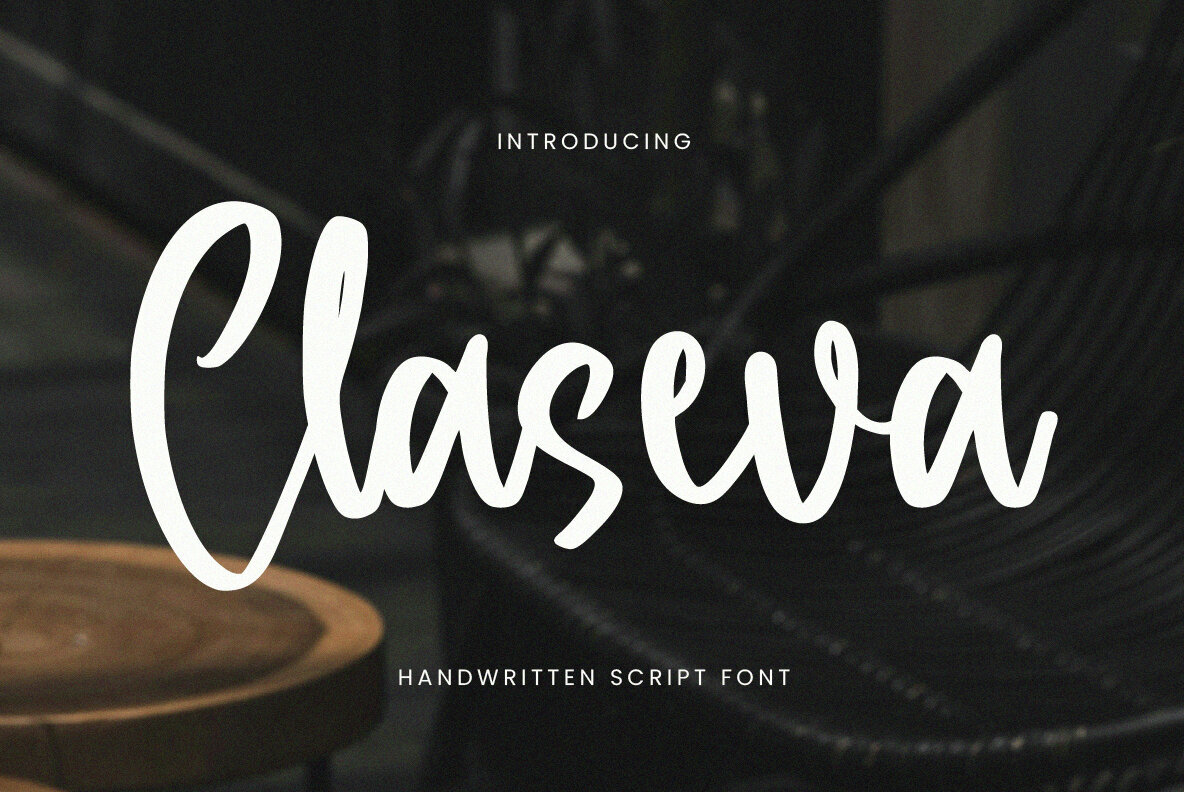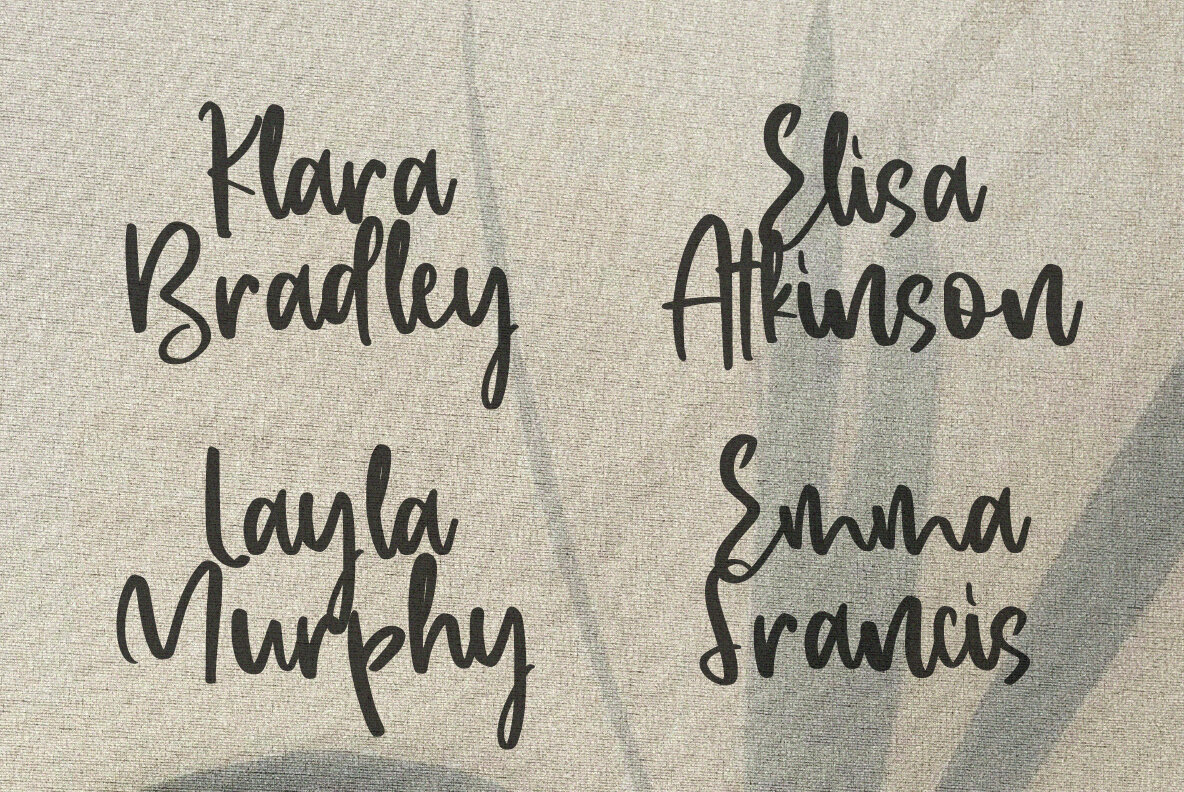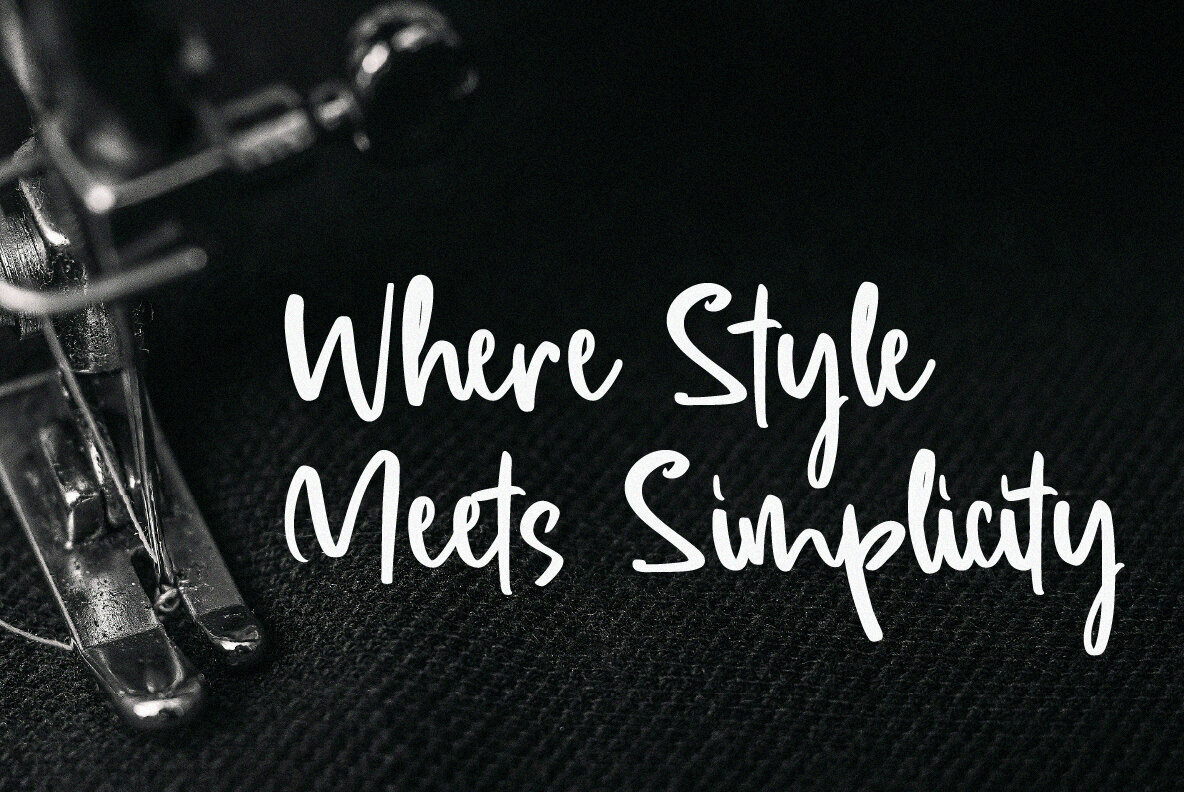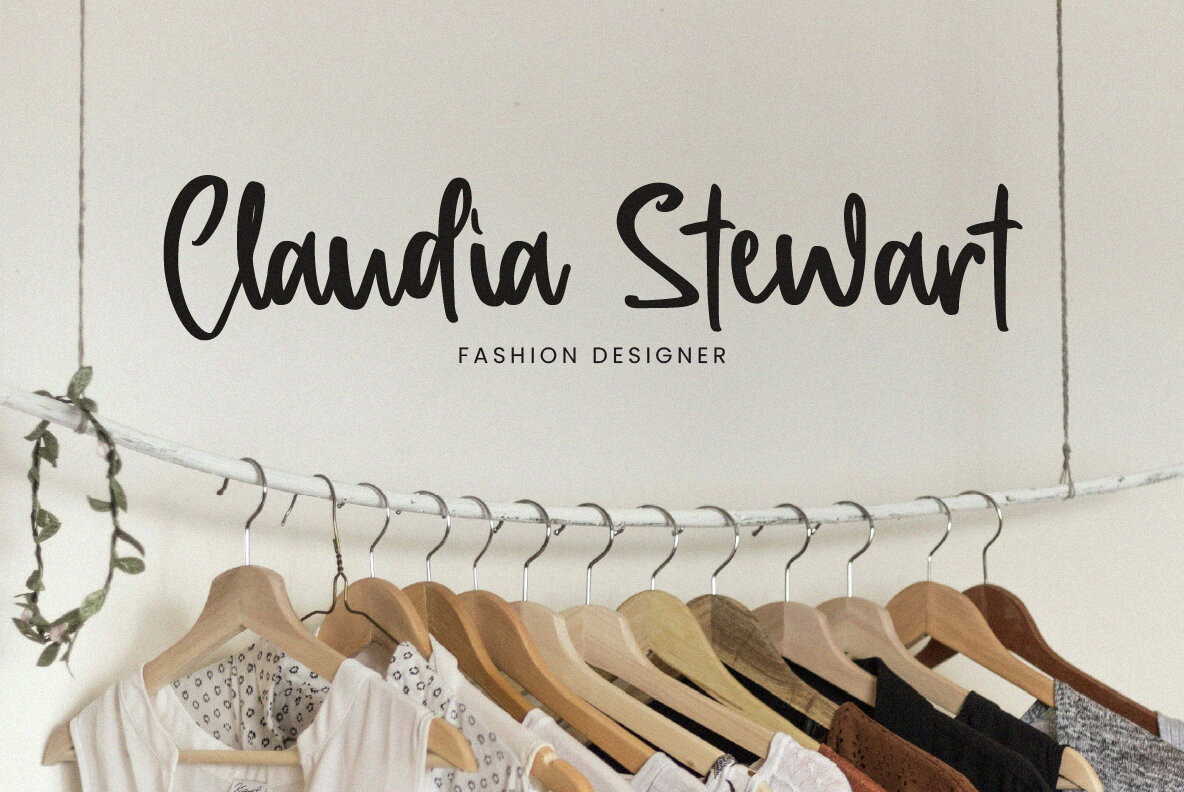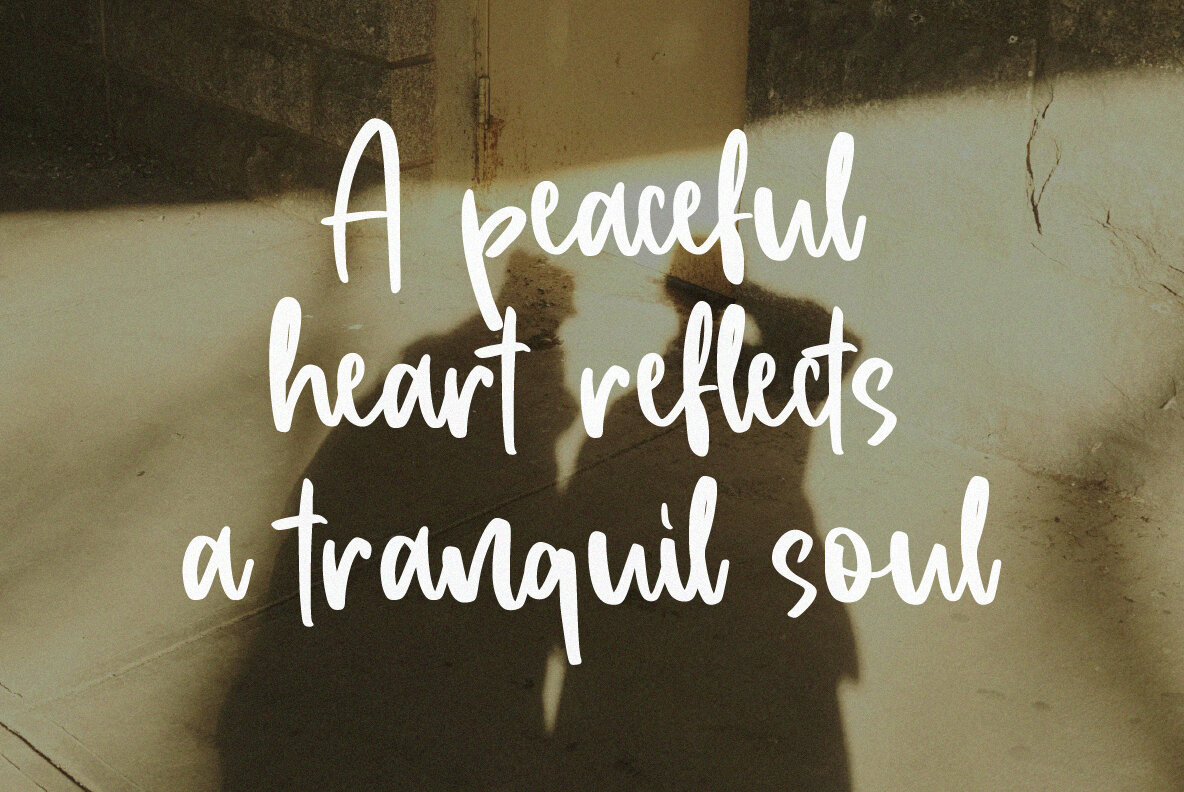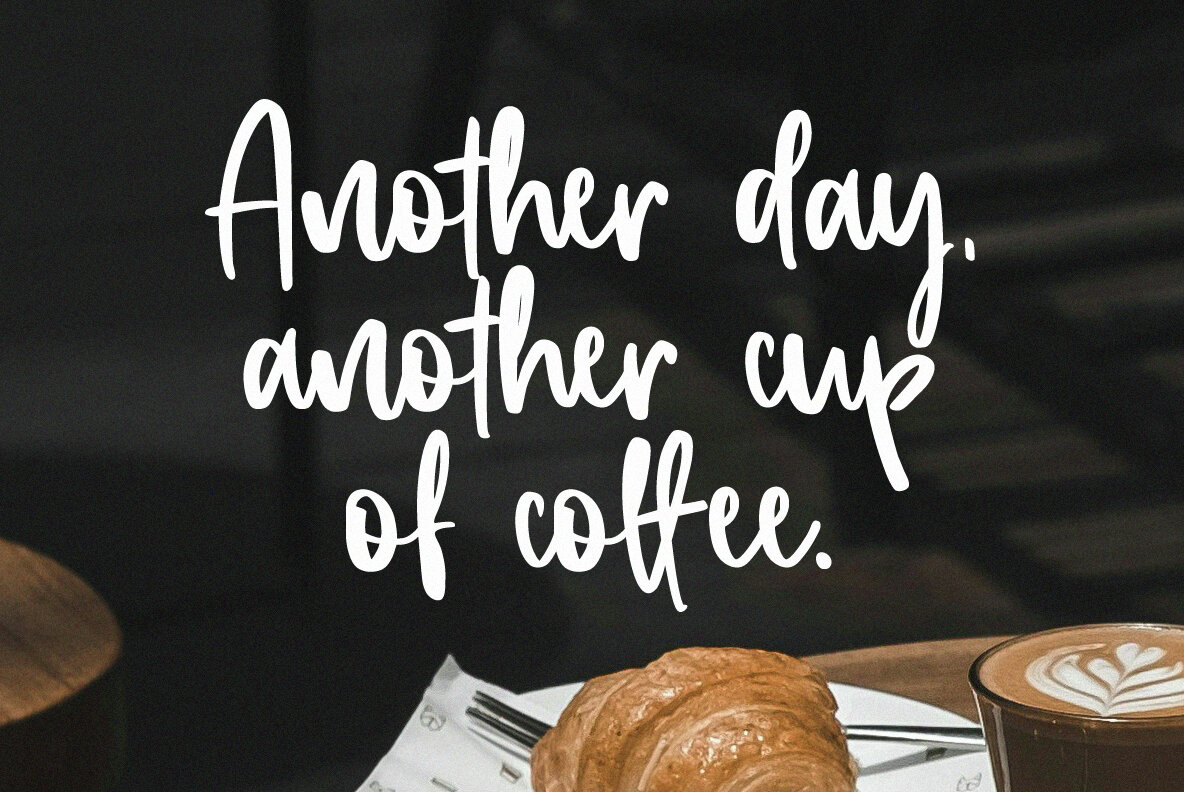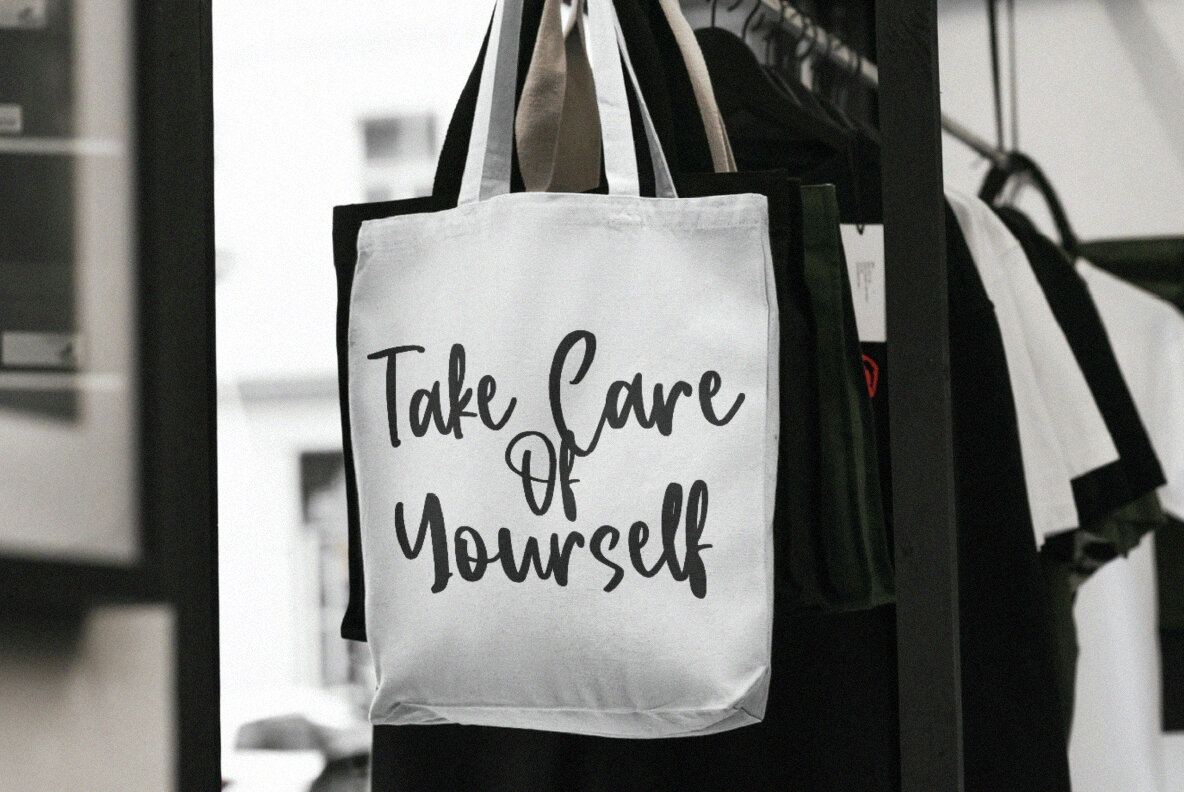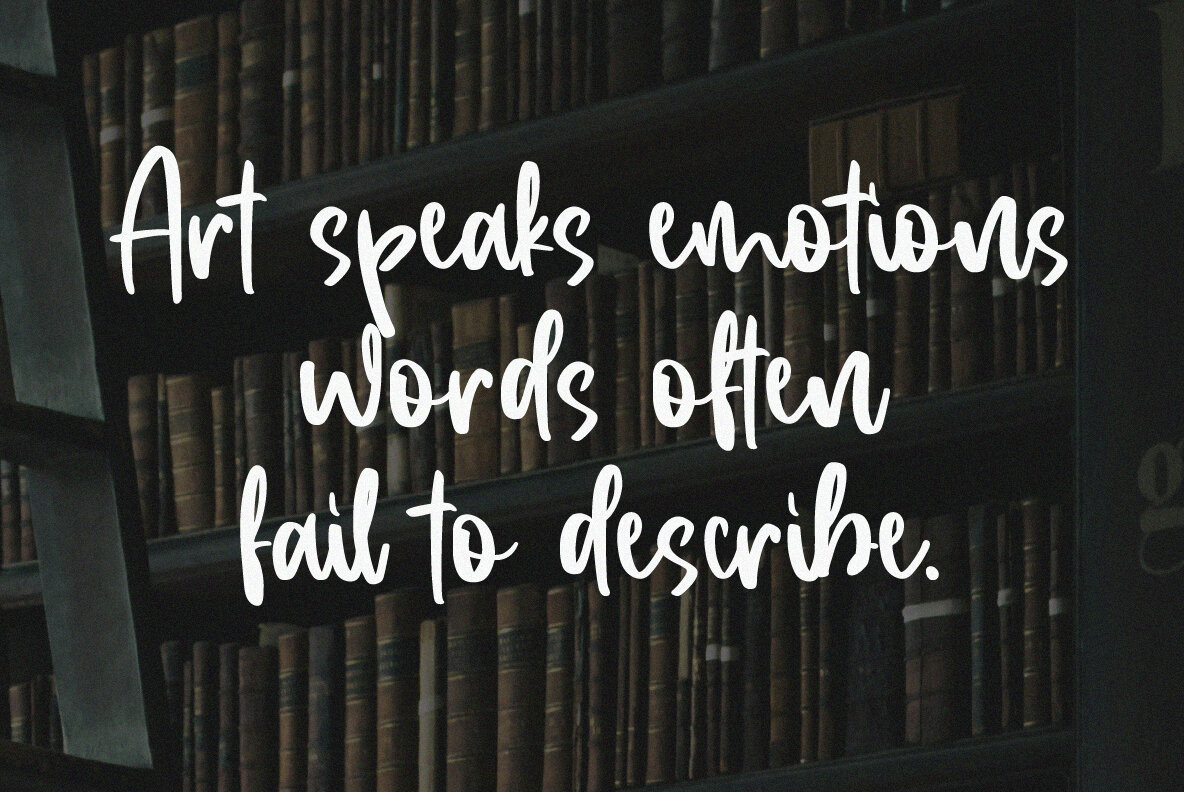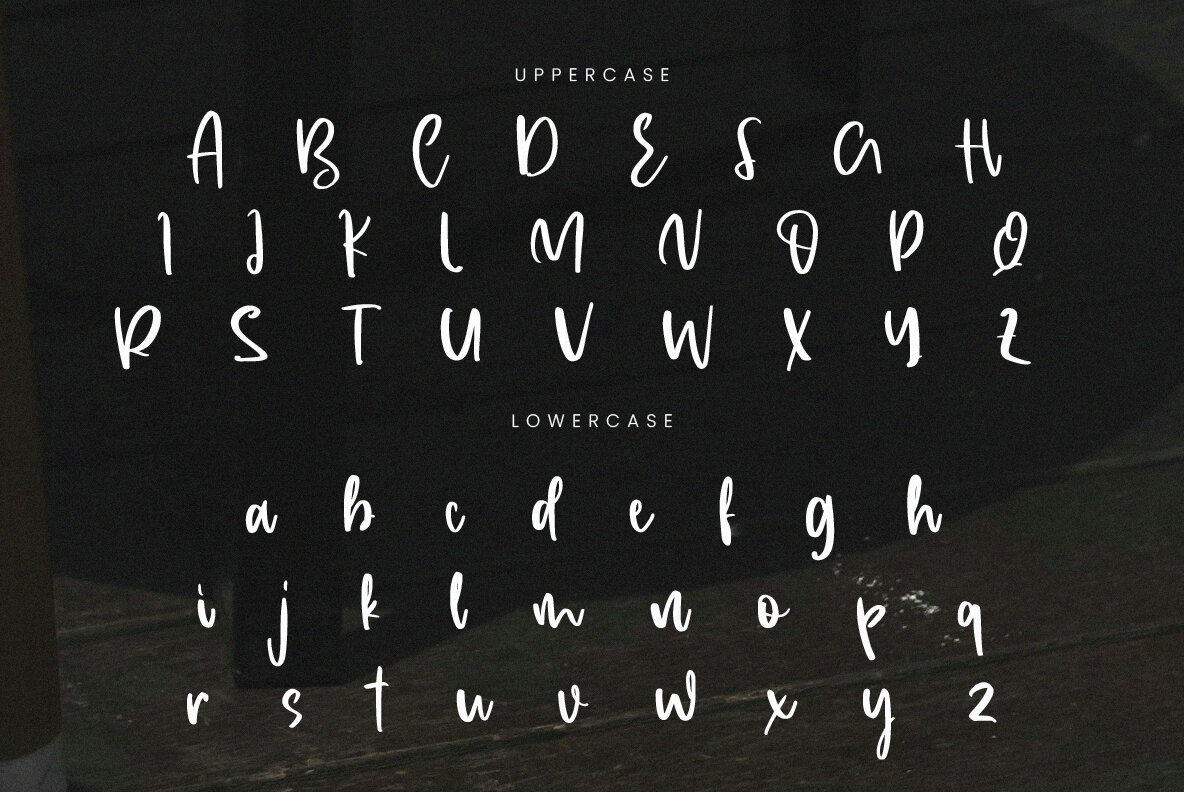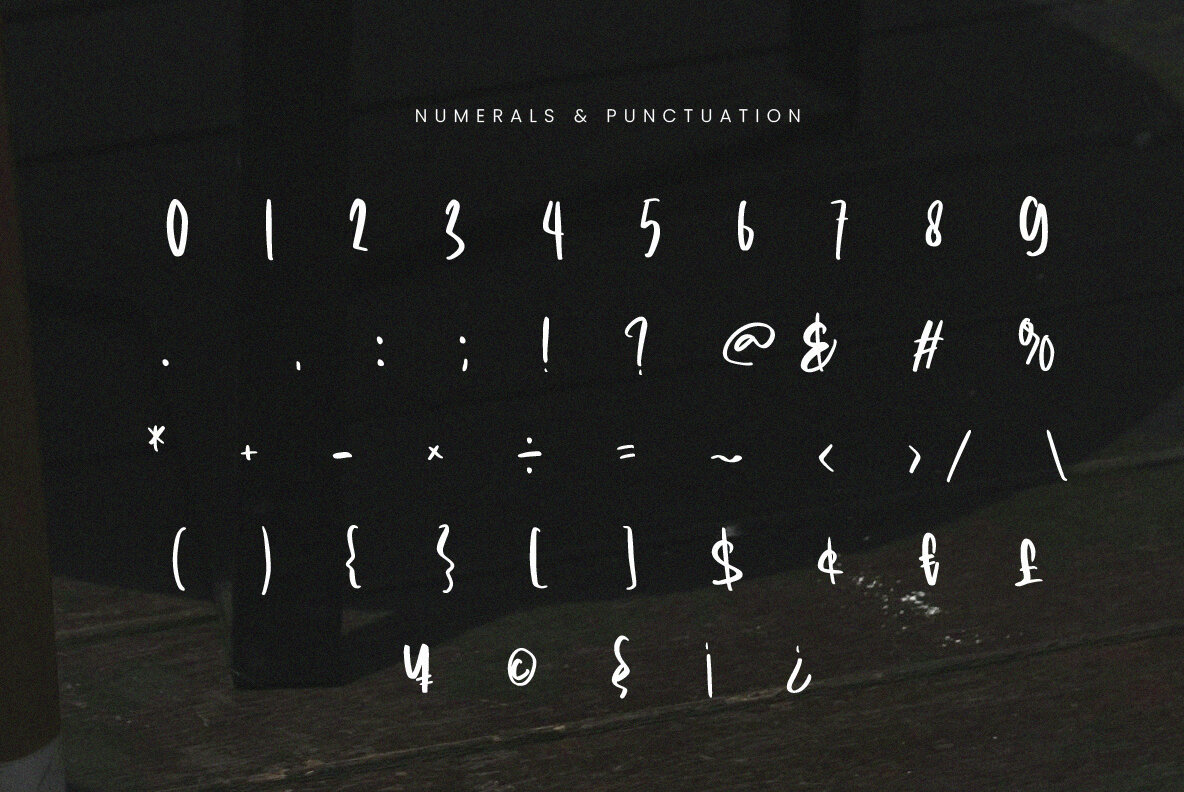
Claseva
Claseva brings the natural allure of handwritten script to your design projects. Ideal for elegant invitations, classy product packaging, and evocative quotes, this font offers a warm touch in every letter. Crafted with smooth curves and organic details, Claseva exudes a natural elegance.
Perfect for branding, product packaging, wedding invitations, and social media content that requires a refined aesthetic, Claseva is designed for those who appreciate beauty. Each character strikes a balance between elegance and spontaneity, making it distinctly charming. Add a touch of sophistication to your work with Claseva, and let your designs stand out.